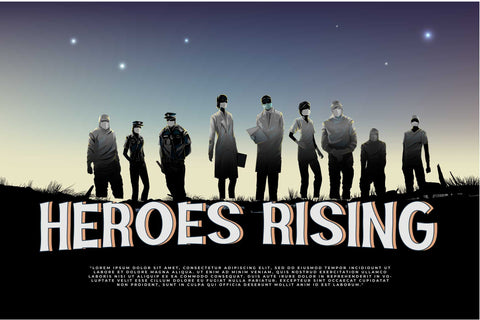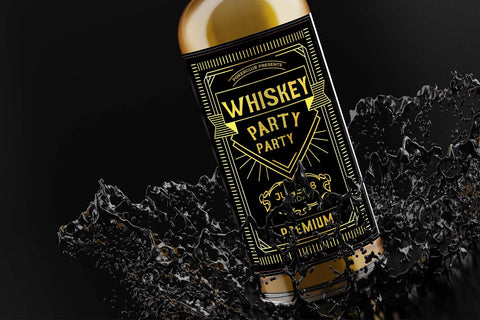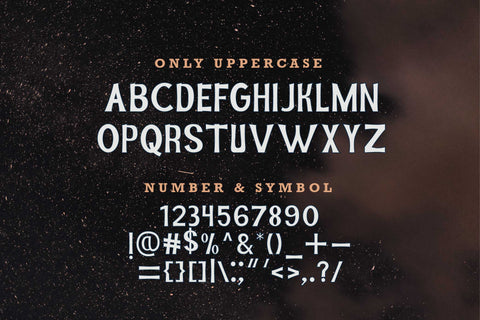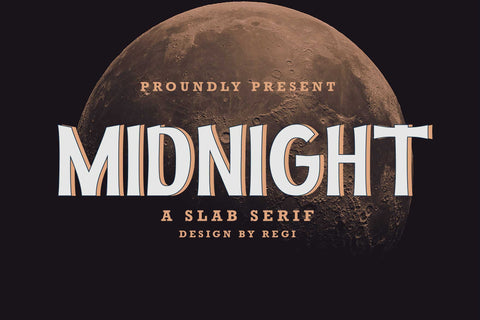
Midnight Display Font
Midnight Display Font is a design font with a eleganstyle that can enhance the quality of your designs.
Midnight Display Font – This Font is perfect for designs, logos, social media, brands, advertisements, product designs, handwritten quotes, product packaging, headers, posters, merchandise, and other designs.